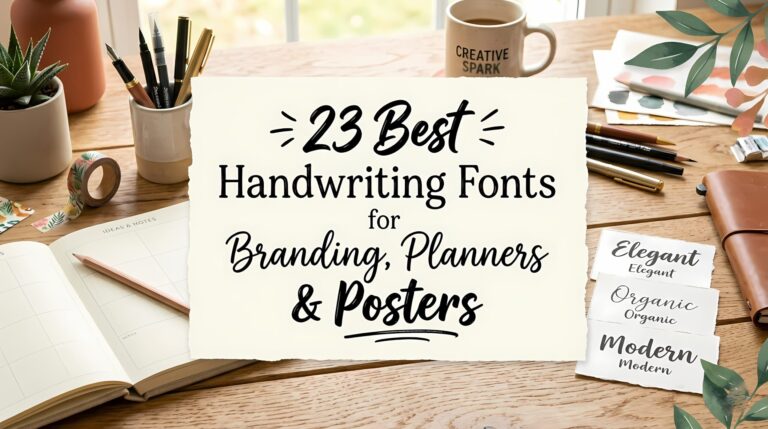
23 Best Handwriting Fonts for Branding, Planners & Posters – Honest Review
Let me be honest with you. I’ve worked with thousands of fonts. Serious serifs, cold sans-serifs, flashy display fonts — they all have their place. But when I really need a project to feel like something? When I want it to breathe, to smile, to whisper “a real person made this”? I reach for Handwriting Fonts. There’s something…